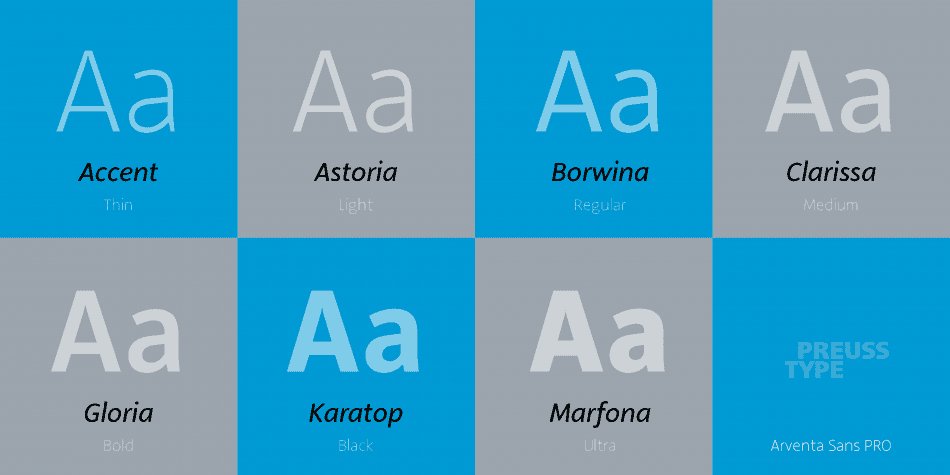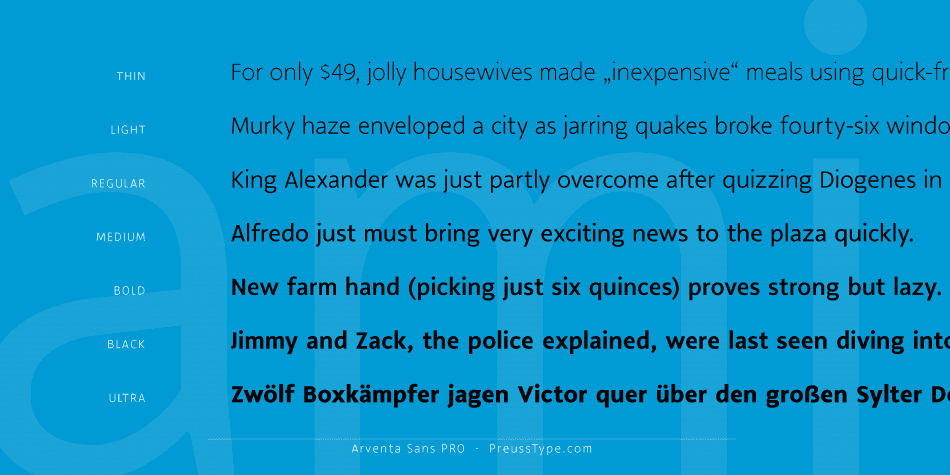
Arventa Sans Pro Font was designed to be highly legible and adaptable, serving as a premium alternative to modern humanist sans serifs while remaining adaptable enough for editorials and corporate branding.